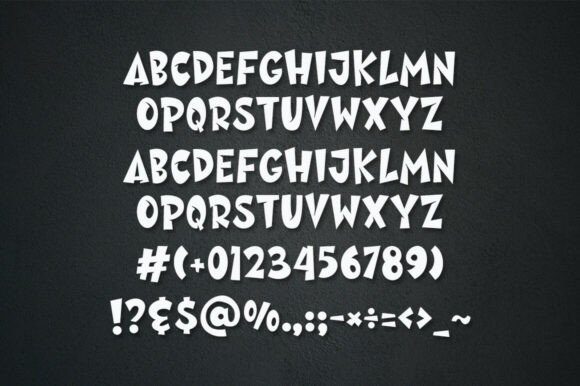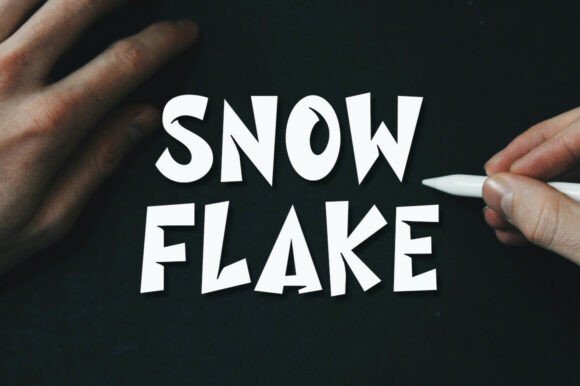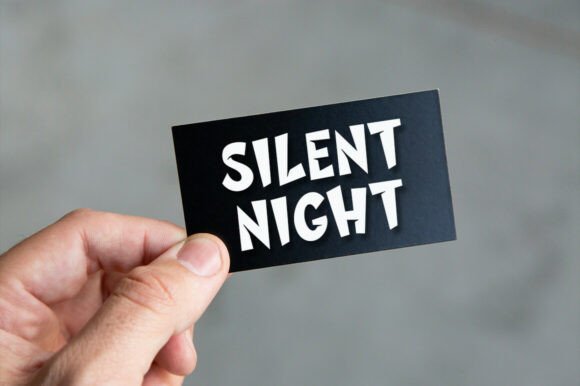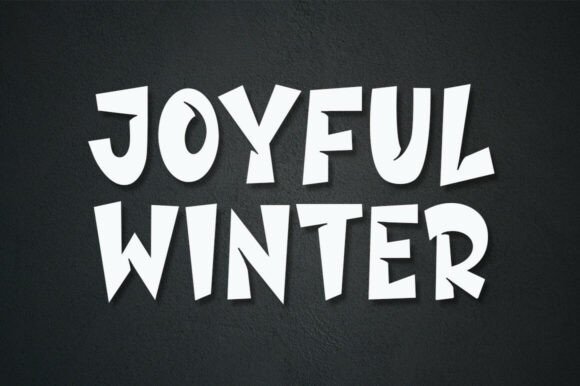
Introduction to Grinch Shadow Font
Grinch Shadow font is a quirky, high-character display typeface inspired by the mischievous spirit of classic holiday animation.
This Grinch Shadow typeface features bold, irregular shapes and sharp, โspikyโ terminals that create a playful sense of mystery and whimsy It is an exceptional choice for holiday-themed marketing, party flyers, and childrenโs book covers that need to capture a fun, slightly rebellious energy.
Key Features of Grinch Shadow Font
Why Choose Grinch Shadow Font?